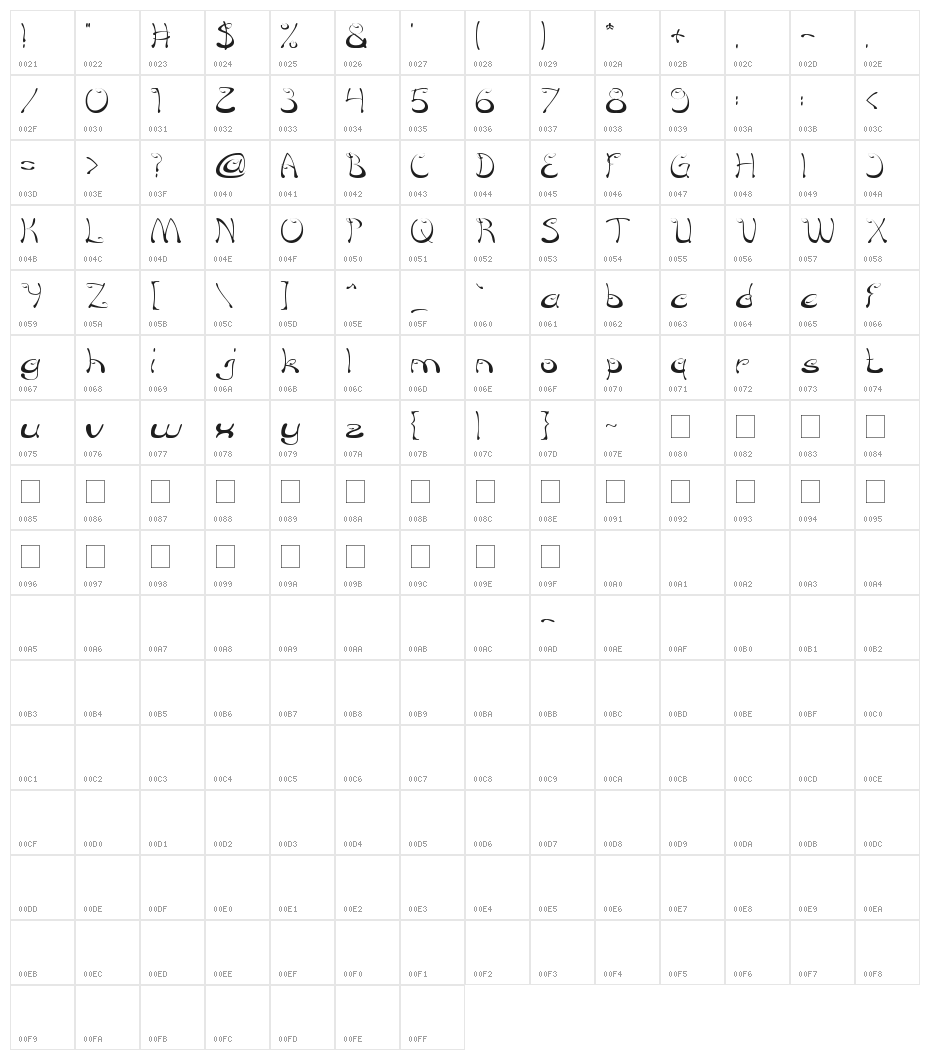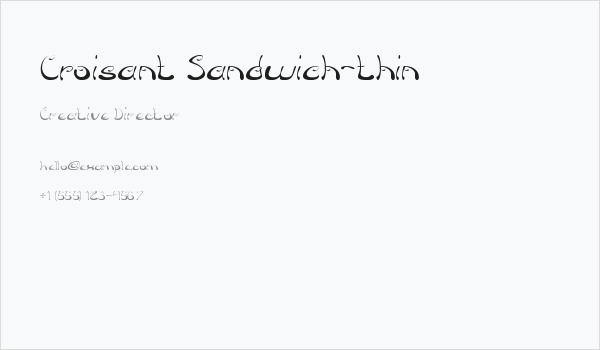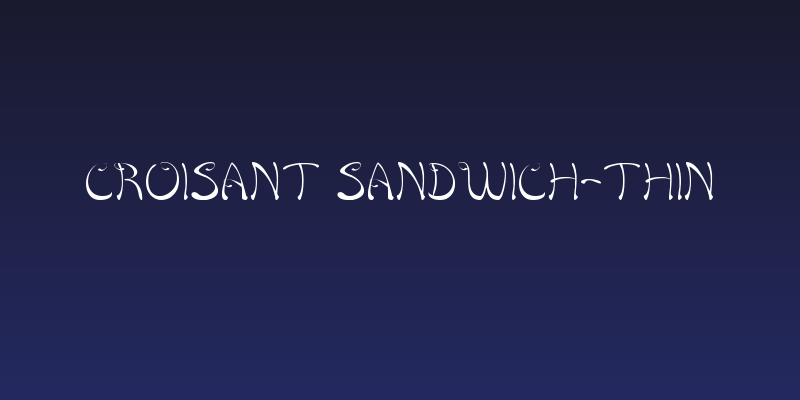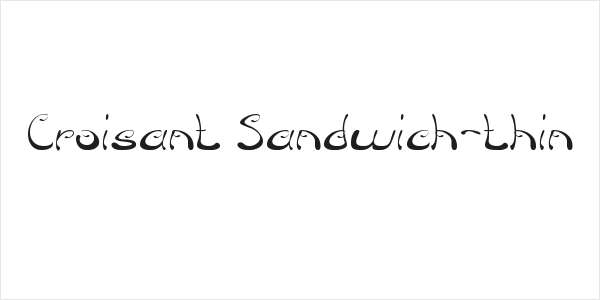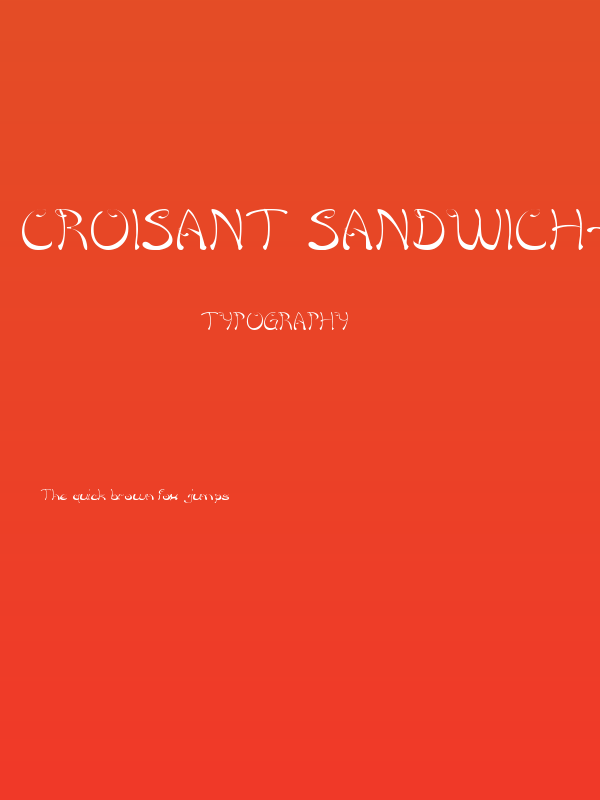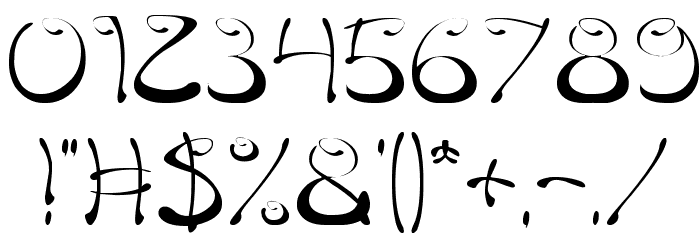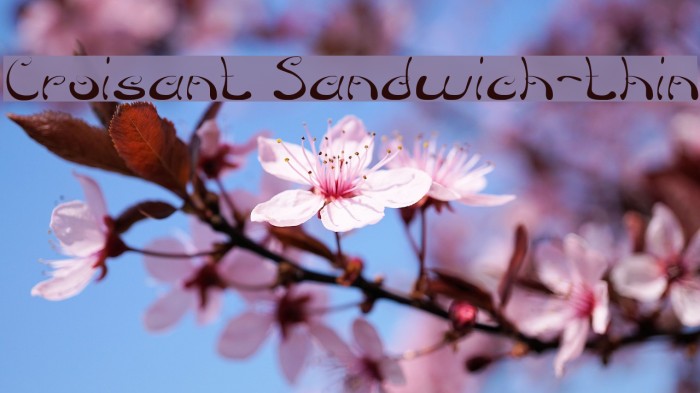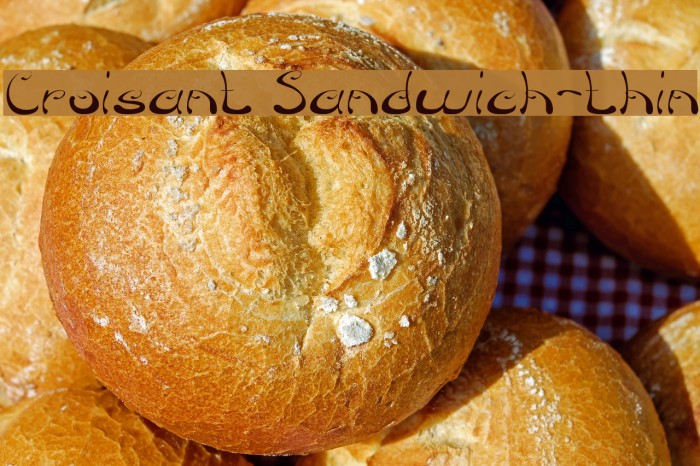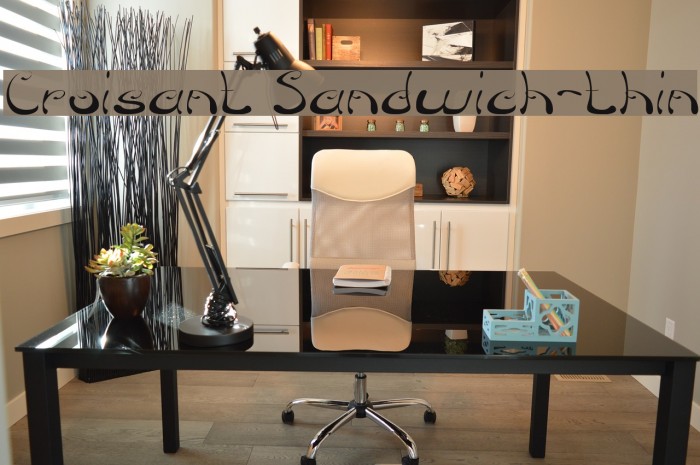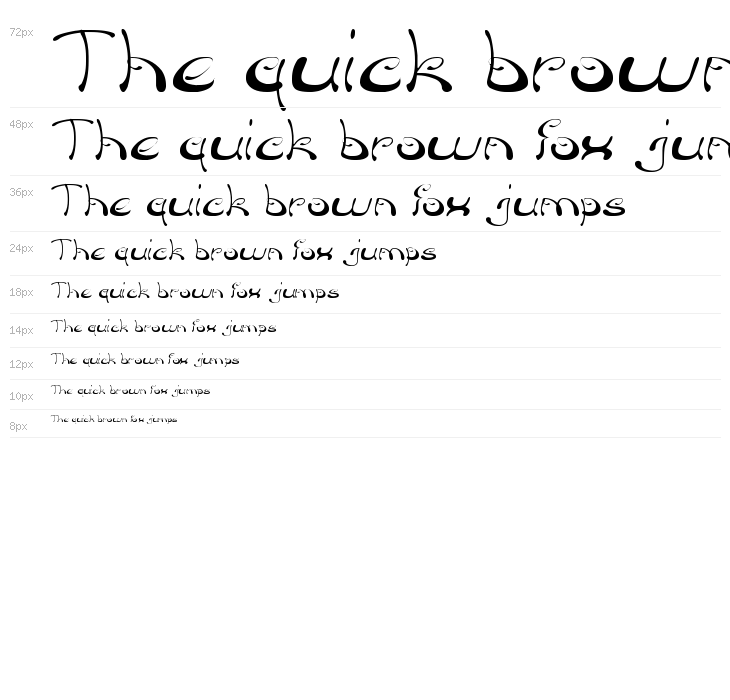
Croisant Sandwich-thin Font
Croisant Sandwich-thin Description
This font features a whimsical and playful design with a unique blend of curves and swirls. Each character is adorned with delicate flourishes, giving it an artistic and decorative appearance. The uppercase letters are bold and expressive, while the lowercase letters maintain a consistent flow with a slightly more subdued flair. The numbers and special characters follow the same artistic style, ensuring a cohesive look across all glyphs. The overall design is reminiscent of a hand-drawn script, making it ideal for projects that require a touch of elegance and creativity.
| Use Case | Logos, Invitations, Artistic Posters |
| Proposed Projects | Ideal for invitations, greeting cards, artistic posters, and branding materials that require a creative and elegant touch. |